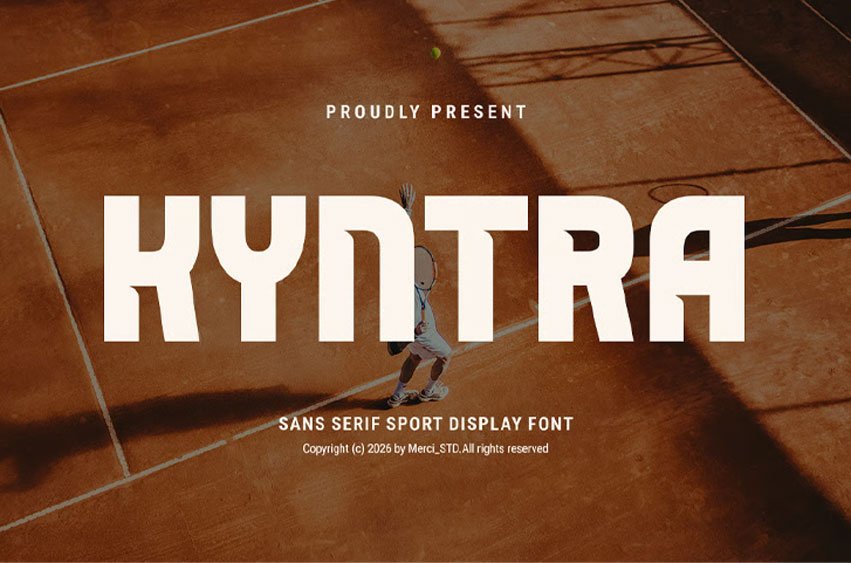
Kyntra Font is a sans serif sport display font with bold geometric structure and energetic modern style.
Built for sports branding, tournament visuals, posters, headlines, fitness campaigns, event promotions, and dynamic creative projects, this font delivers a strong and competitive visual identity.
- Uppercase Letters
- Ligature & Alternate Character
- Unique Hand-Drawn Style